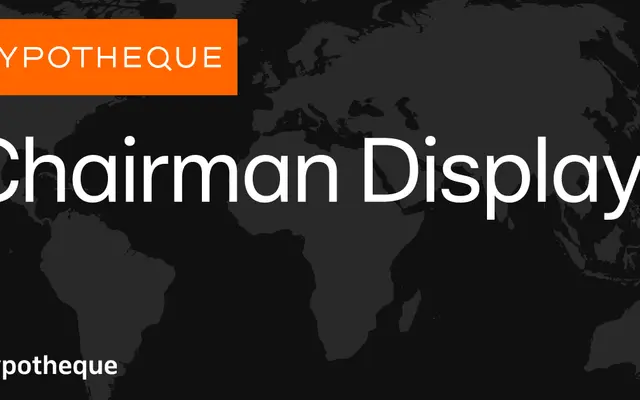
Chairman Display
Typotheque · Zoran Pavlović, Matko Meštrović
Chairman Display specimen from Typotheque
A large type system by Zoran Pavlović and Matko Meštrović spanning Display, Text, Mono and Semi-Mono subfamilies across eight weights with italics.
An expansive humanist sans system from Typotheque covering four distinct subfamilies: Chairman Display, Chairman Text, Chairman Mono and Chairman Semi-Mono, each tuned for its intended context. Display and Text cuts share eight weights from Thin to Black with matching italics, while the Mono and Semi-Mono variants offer slanted rather than true italics. A variable Text subfamily adds further flexibility for screen and editorial use across a wide weight range.
Chairman Display sits within a broad sans-serif system with humanist proportions, featuring optical size variants (Display, Text, Mono, Semi-Mono) and a variable text subfamily, suggesting a text-oriented humanist approach rather than geometric or grotesque.